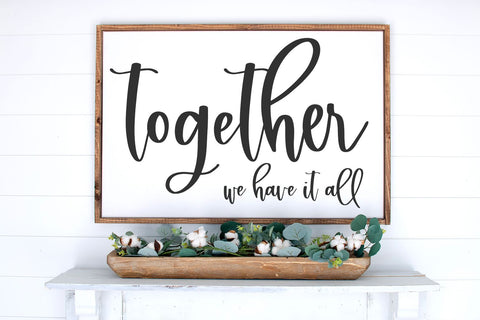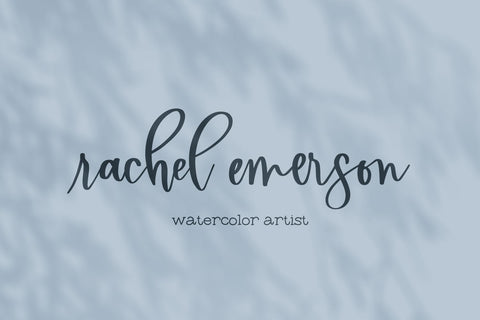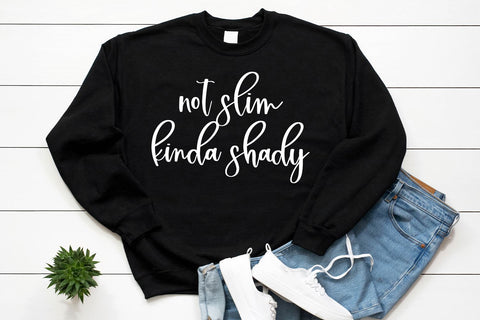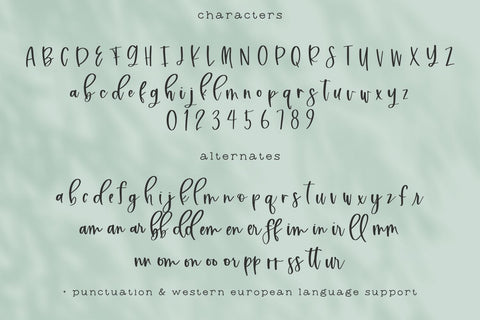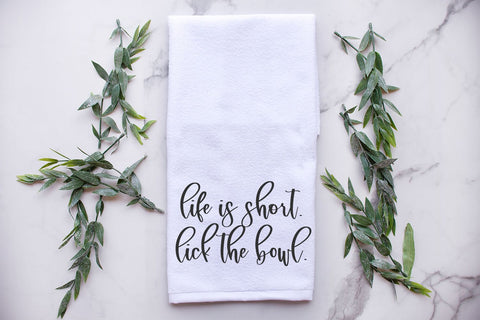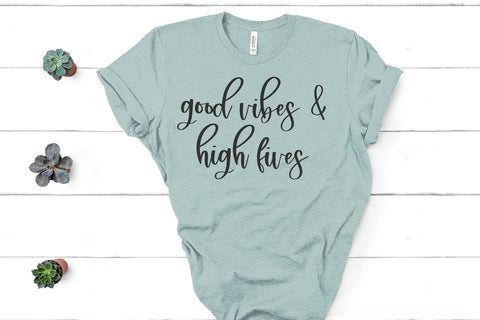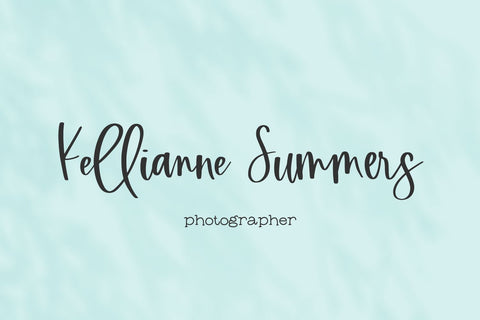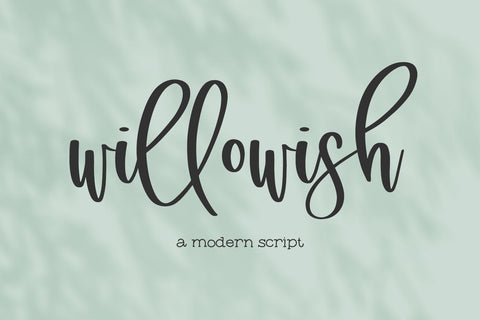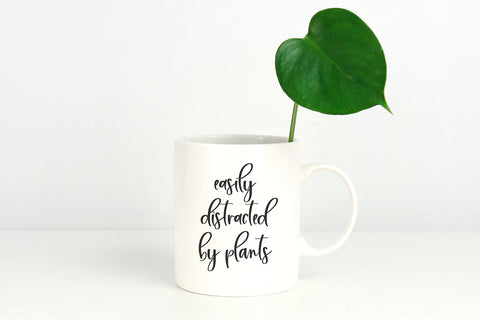
Willowish Modern Calligraphy Font
Introducing Willowish, a handlettered modern calligraphy font with alternates & ligatures. Willowish features clean lines & exaggerated ascenders for visual impact.
Willowish is best for:
- feminine, crafty projects with your Cricut or Silhouette machine, or your SVG design business
- whimsical farmhouse decor and crafts
- logos + branding
- website design + website accents, blog design
- quote graphics for social media
- feminine graphic tee shirt design & other apparel
Willowish includes:
- full upper + lowercase characters
- numbers + punctuation
- Western European Language Support
- 28 alternate characters
- 24 ligatures - am, an, ar, bb, dd, em, en, er, ff, im, in, ir, ll, mm, nn, om, on, oo, or, pp, rr, ss, tt, ur